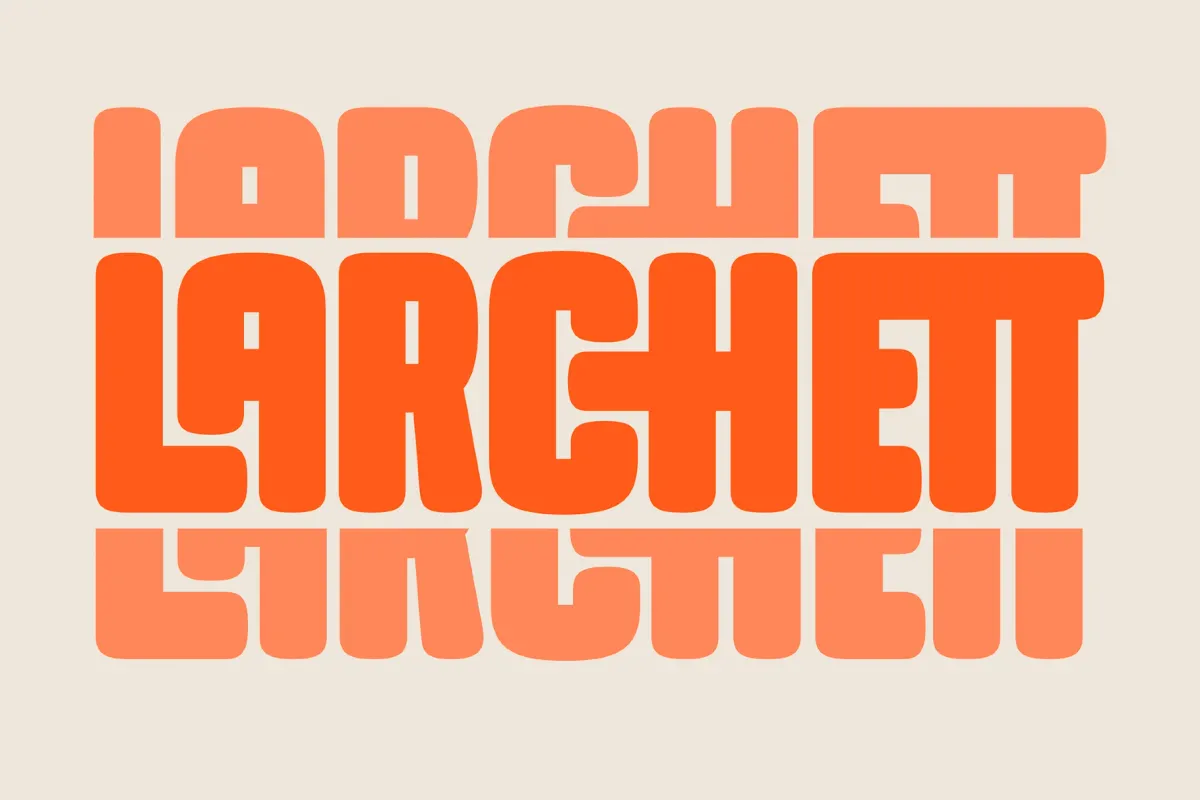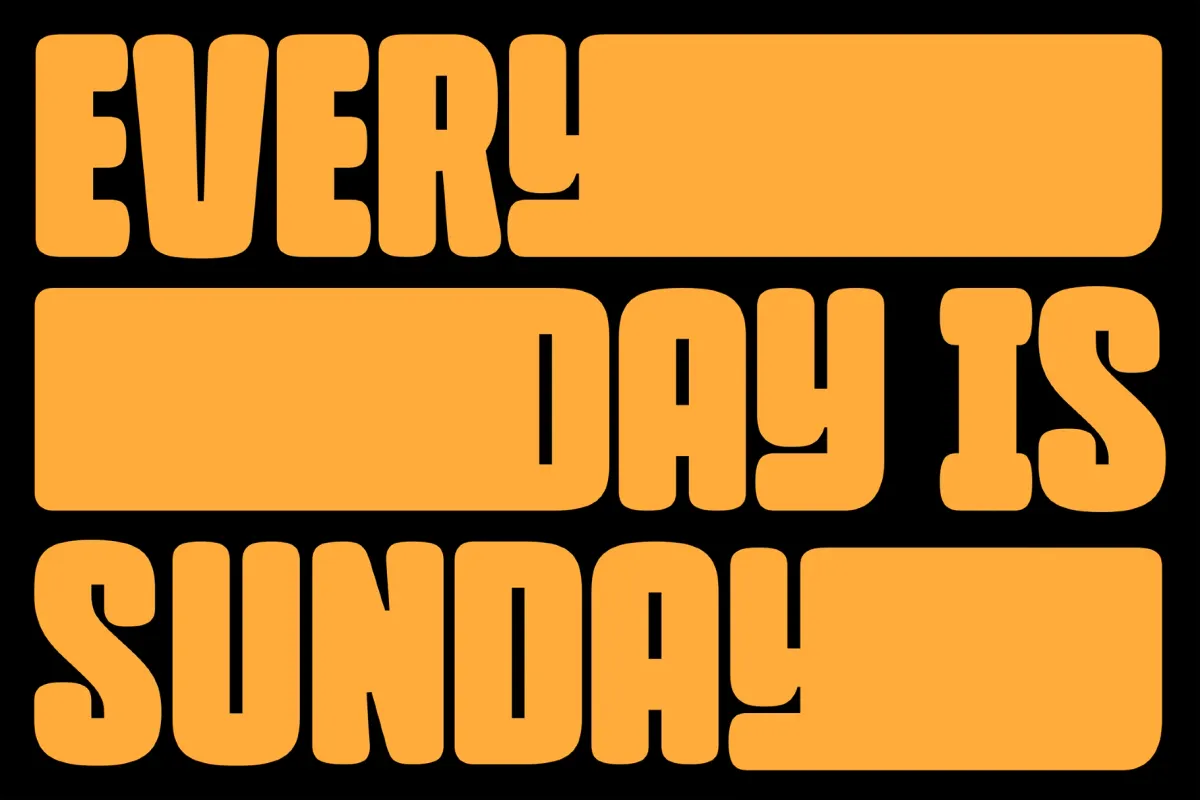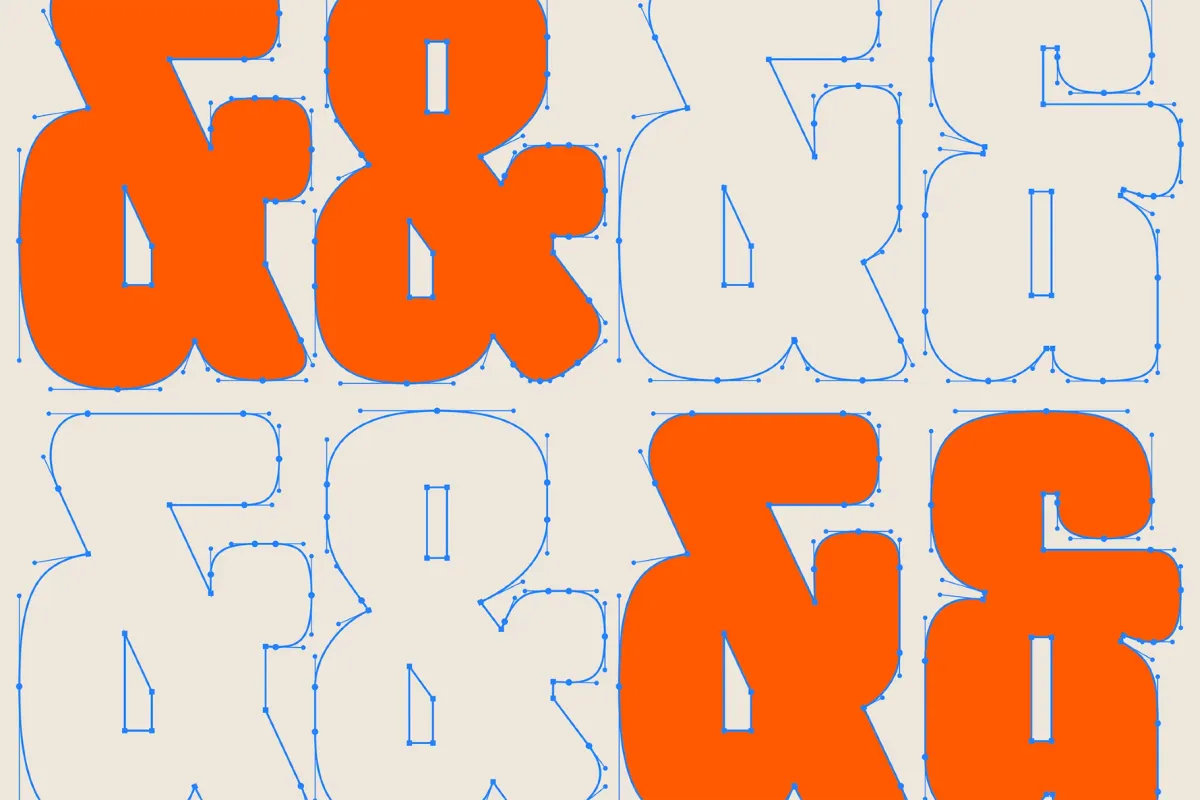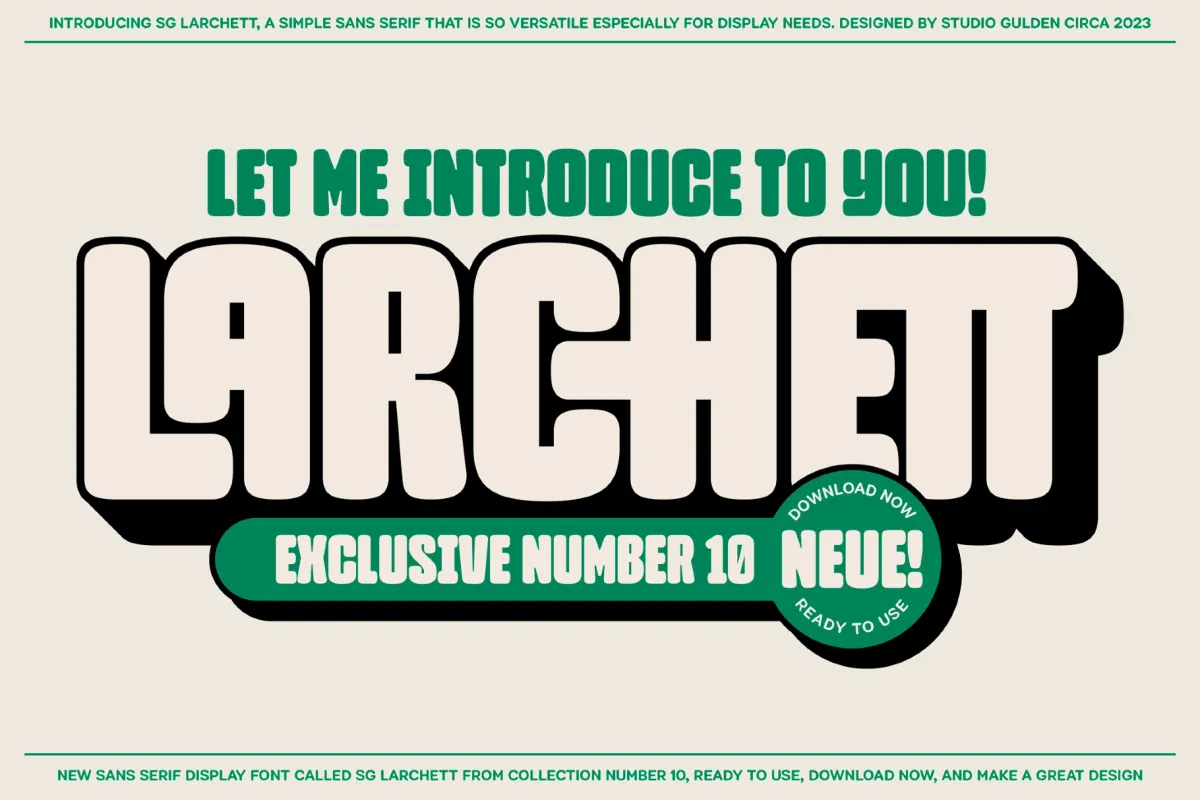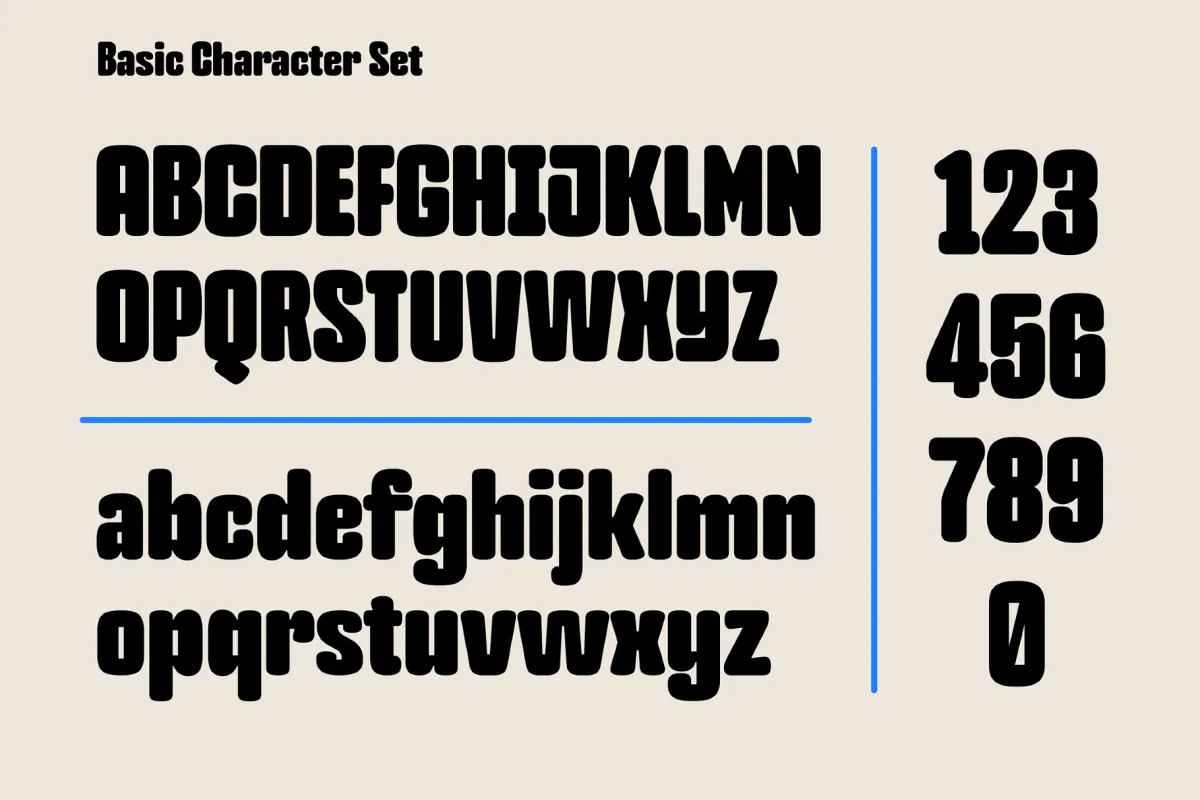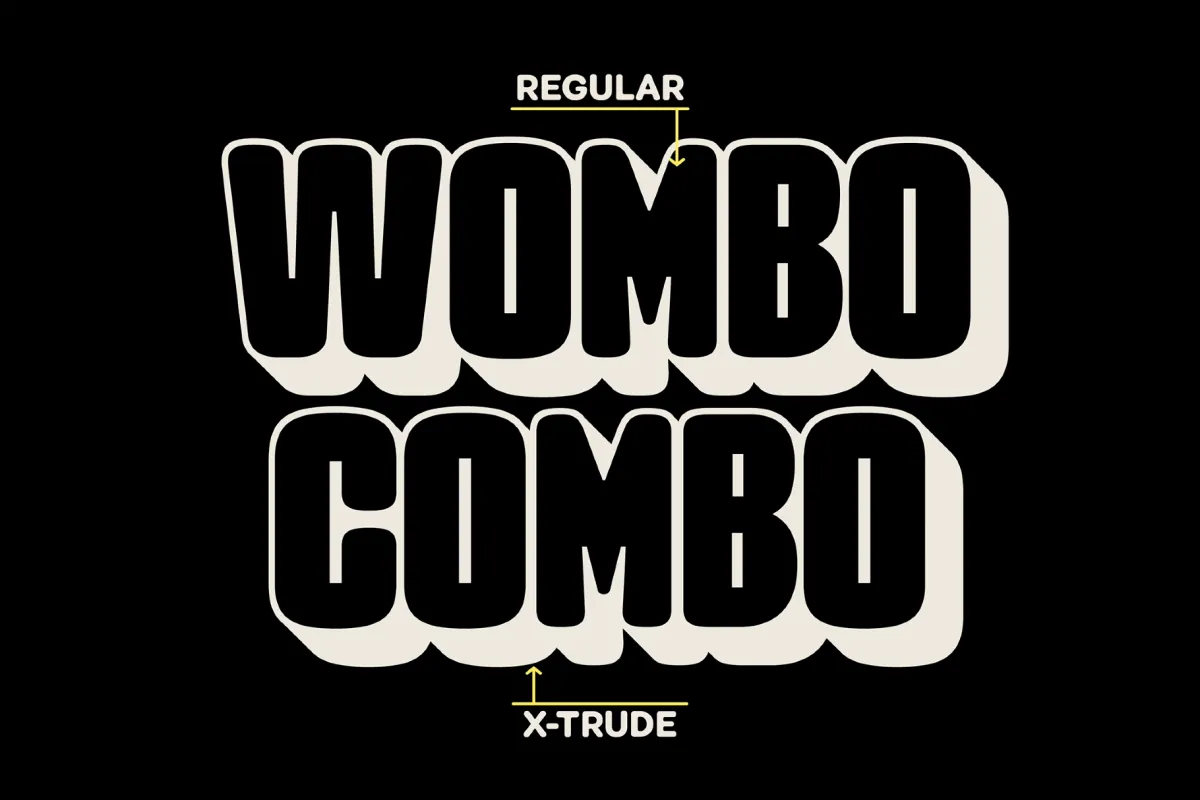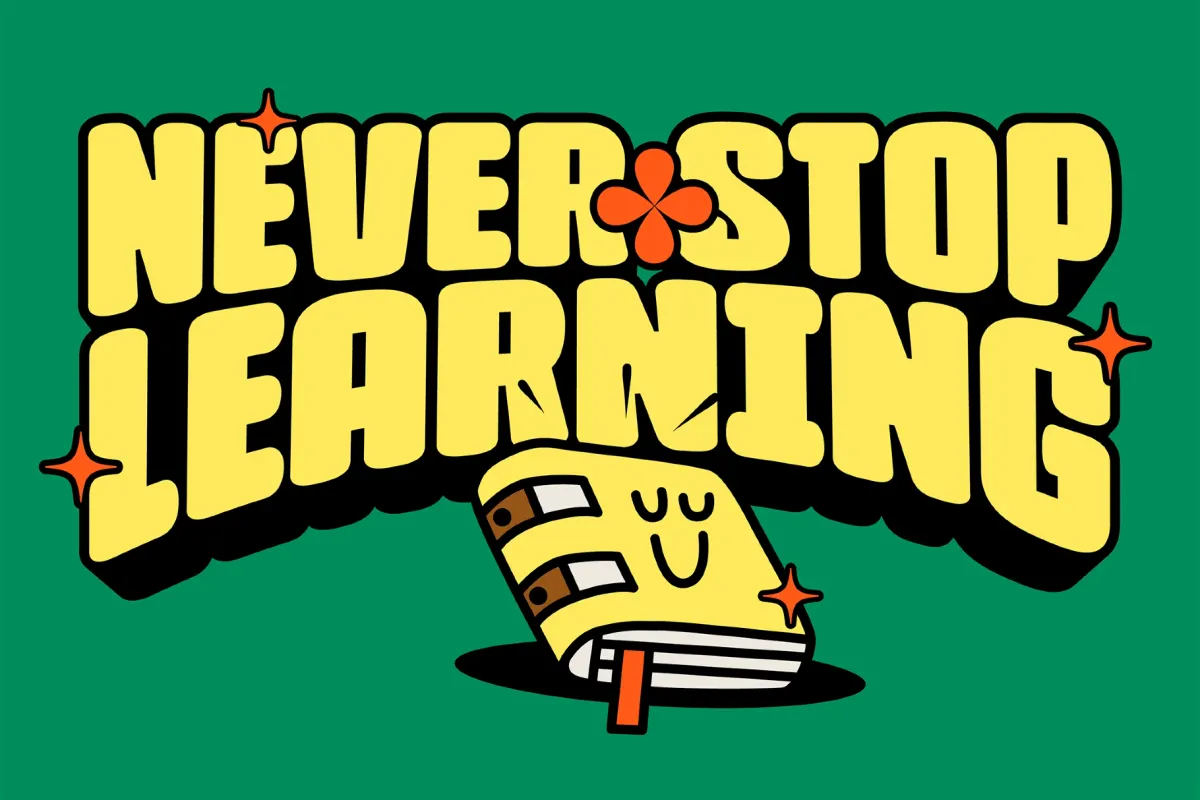
SG LARCHETT
SG Larchett
SG Larchett is a bold sans serif with rounded terminals, squat proportions, and a cartoonish density that reads playful and punchy. Its letterforms are built on strict verticals with minimal modulation, giving the typeface a monolinear rhythm. The blocky silhouette is built upon compressed ovals, tight curves, and wide stems.
The font's construction recalls bubble lettering and retro mascot typography, but with more control. It's perfect for signage, sticker packs, merch, editorial headers, logotypes, and bold packaging layouts.
- Regular and Extrude styles;
- full uppercase and lowercase set, numerals, punctuation & multilingual support.